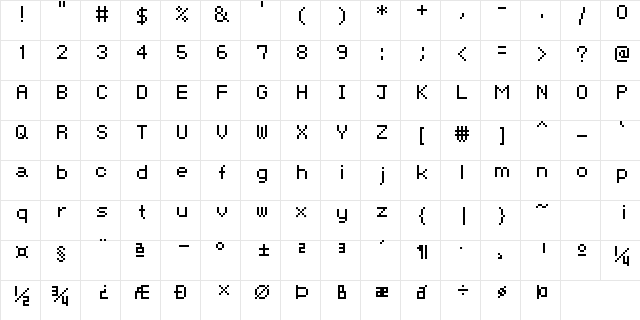
nontoxic_ang_3 Regular
Design Context for nontoxic_ang_3 Typeface
nontoxic_ang_3 is a composed and adaptable typeface that performs quietly and consistently across a wide range of design contexts.
Pro Tip: Pair nontoxic_ang_3 with a font of contrasting weight or personality to build a more expressive typographic hierarchy.